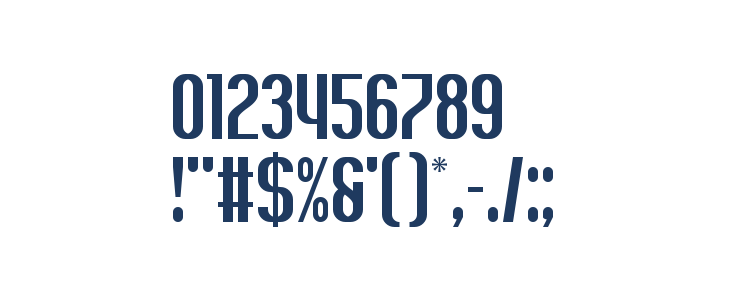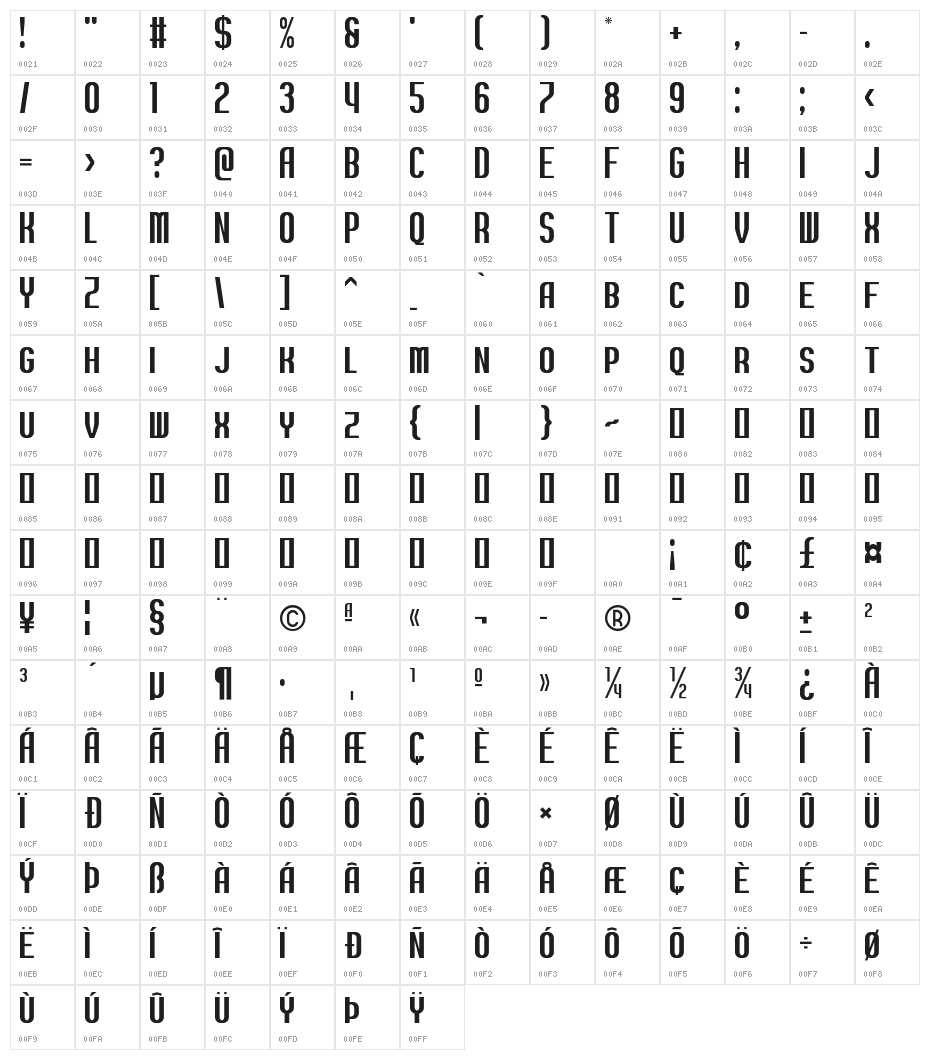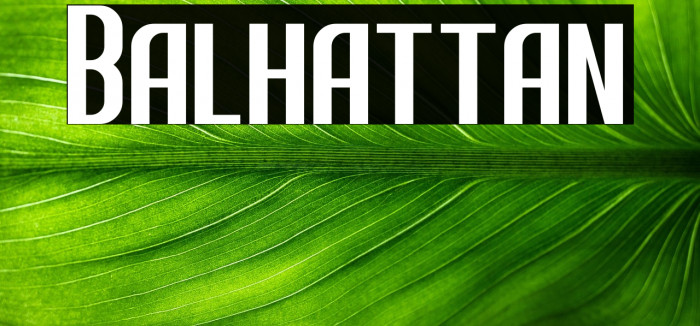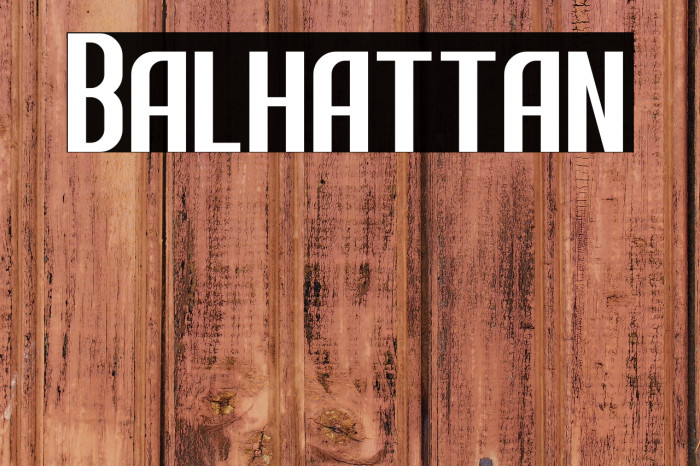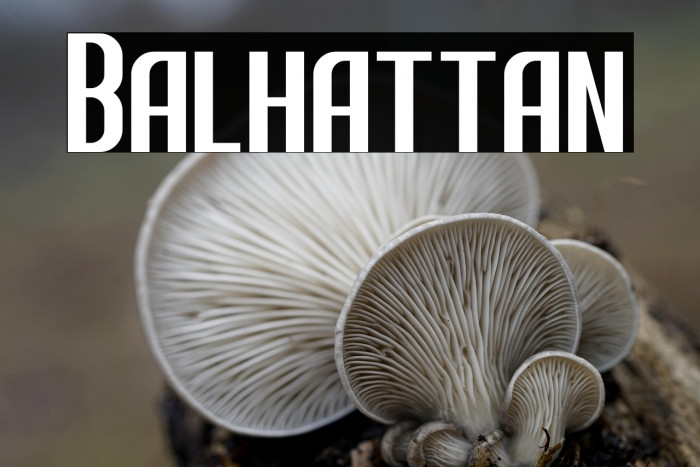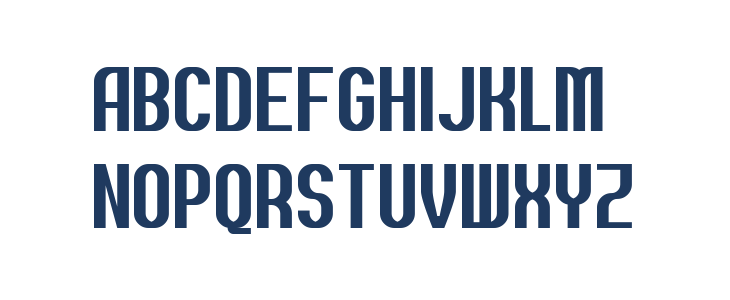
Balhattan Font
Balhattan Description
This font features a bold and striking design with a modern, geometric aesthetic. The uppercase letters are tall and narrow, with consistent stroke widths that give a uniform appearance. The lowercase letters maintain the same geometric style, ensuring readability while retaining a unique character. The numbers are similarly styled, providing a cohesive look across all characters. Special characters are designed to match the boldness and geometric nature of the font, making it suitable for attention-grabbing designs. The overall style is modern and assertive, ideal for making a strong visual impact.
| Proposed Projects | Ideal for headlines, posters, branding, and any project requiring a bold, modern aesthetic. |